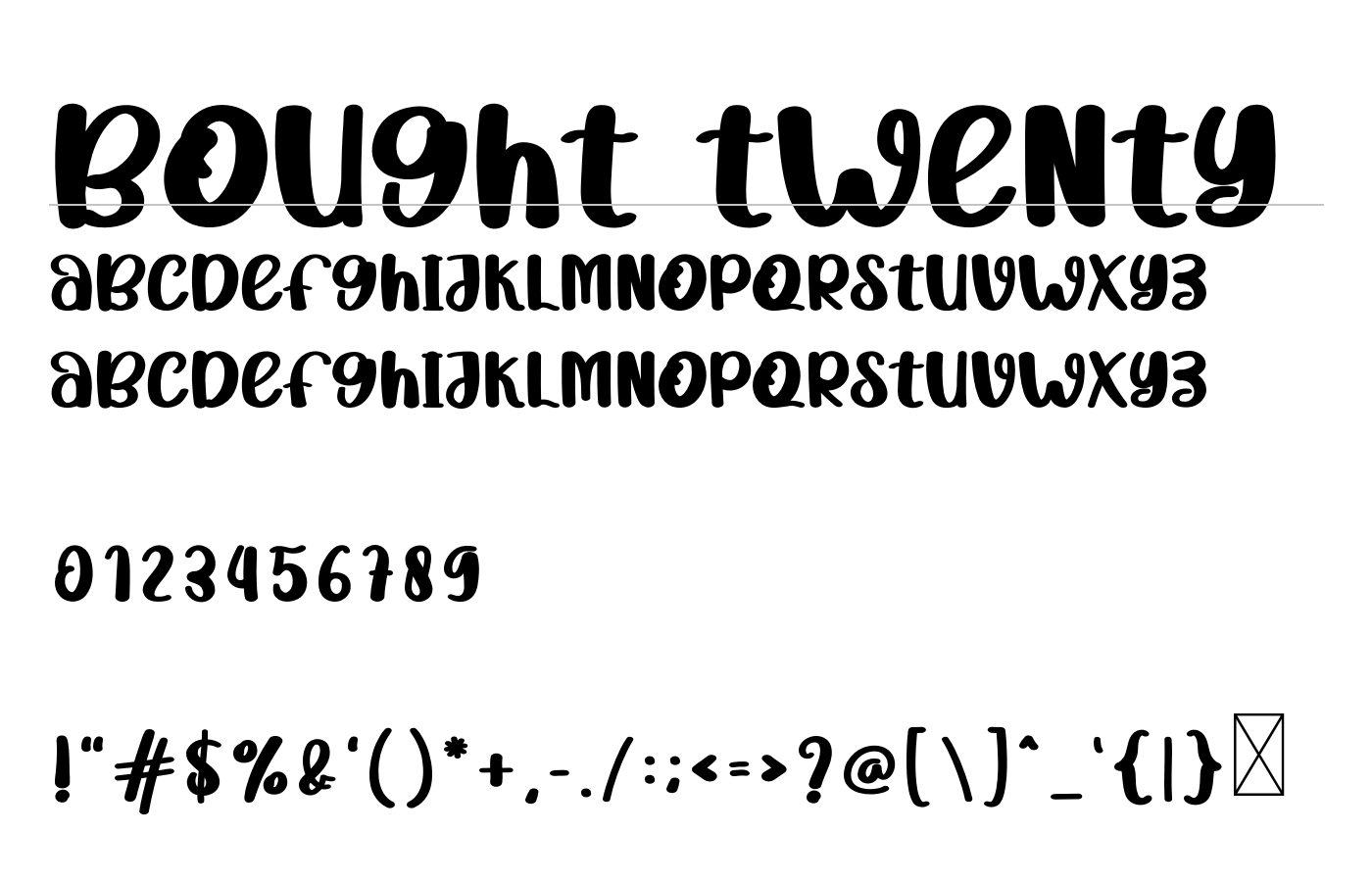
Bought Twenty is a playful and bold handwritten font with rounded strokes and a friendly, casual vibe. Its thick, soft letterforms and unique quirky shapes make it perfect for fun branding, invitations, and creative projects that want to express warmth and personality. This font works well in headlines and logos where a lively and approachable style is needed.
Bought Twenty Font